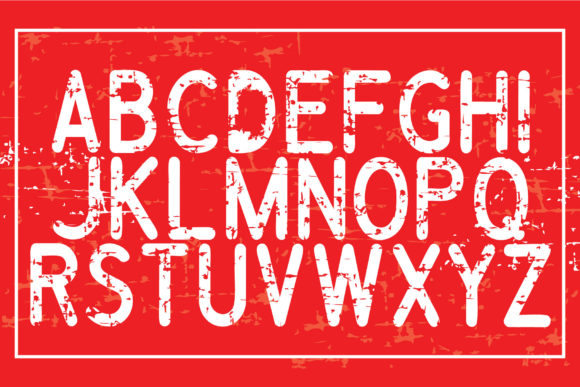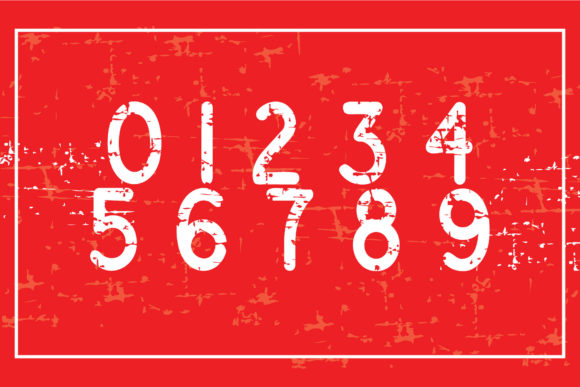
Introducing Discipline Font: The Ultimate Display Font for Bold Designs
Are you tired of using the same old fonts for your designs? Look no further! Discipline Font is a game-changing display font that is rough textured, cool, and assertive. This stunning font is perfect for creating eye-catching posters, flyers, and prints that demand attention. In this article, we’ll explore the features and benefits of Discipline Font, and how you can use it to take your designs to the next level.
The Characteristics of Discipline Font
Discipline Font is a unique and powerful display font that boasts a rough textured look. Its cool and assertive tone makes it perfect for designs that require a bold statement. The font’s texture gives it a raw, edgy feel that adds depth and character to any design. Whether you’re creating a poster, flyer, or print, Discipline Font is sure to make your design stand out from the crowd.
Endless Possibilities with Discipline Font
One of the best things about Discipline Font is its versatility. The font can be used for a wide range of design projects, from bold and edgy posters to sleek and modern prints. The possibilities are endless, and the font’s flexibility makes it easy to experiment with different styles and designs. Whether you’re a designer, crafters, or DIY enthusiast, Discipline Font is a great addition to your font library.
Why Choose Discipline Font?
So, why choose Discipline Font over other display fonts? Here are just a few reasons:
- Unique Texture: The rough textured look of Discipline Font gives it a unique and distinctive character that sets it apart from other fonts.
- Bold and Assertive: The font’s cool and assertive tone makes it perfect for designs that require a bold statement.
- Versatile: Discipline Font can be used for a wide range of design projects, from posters and flyers to prints and more.
- Easily Readable: Despite its bold texture, Discipline Font is easy to read, making it perfect for designs that require a clear message.
How to Use Discipline Font in Your Designs
Using Discipline Font in your designs is easy. Here are a few tips to get you started:
- Pair it with a Simple Background: Let the font be the star of the show by pairing it with a simple background.
- Experiment with Colors: Try out different colors to see what works best with Discipline Font.
- Use it for Headlines: The font’s bold and assertive tone makes it perfect for headlines and titles.
- Add Texture and Patterns: Add an extra layer of depth to your design by incorporating texture and patterns.
Tips and Tricks for Working with Discipline Font
Here are a few more tips and tricks for working with Discipline Font:
- Use it for Large-Scale Designs: The font’s texture and bold tone make it perfect for large-scale designs, such as billboards and posters.
- Combine it with Other Fonts: Experiment with combining Discipline Font with other fonts to create a unique and interesting look.
- Pay Attention to Kerning: Make sure to pay attention to kerning to ensure that the font looks its best.
| Font Name | Discipline Font |
| Author | KtwoP |
Discipline Font is a powerful and versatile display font that is perfect for designers, crafters, and DIY enthusiasts. Its unique texture, bold and assertive tone, and endless possibilities make it a great addition to any font library. Whether you’re creating a poster, flyer, or print, Discipline Font is sure to make your design stand out from the crowd. So why wait? Download Discipline Font today and start exploring its endless possibilities!